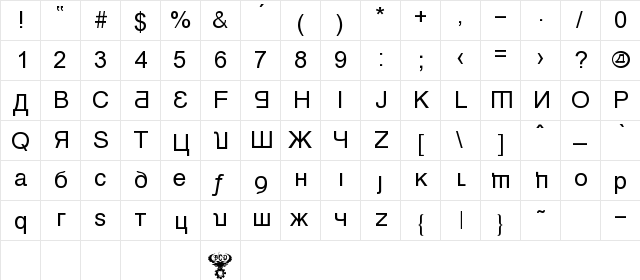
Kremlin Minister Regular
Design Context for Kremlin Minister Typeface
Kremlin Minister is a composed and adaptable typeface that performs quietly and consistently across a wide range of design contexts.